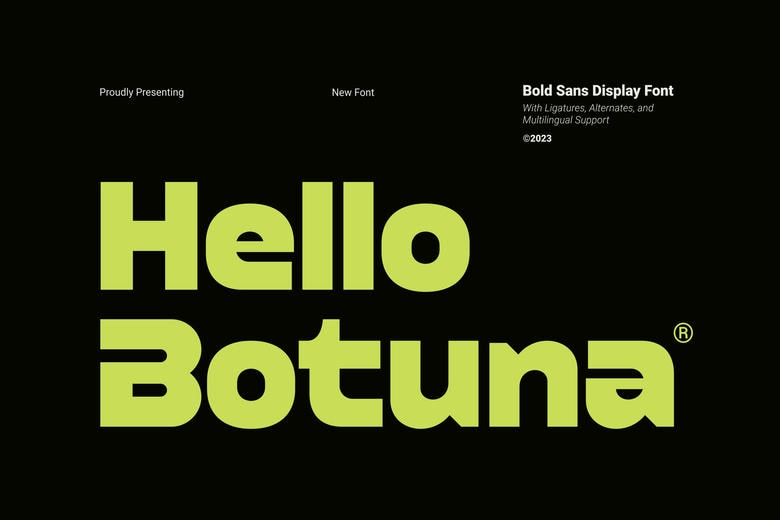
Hello Botuna Font
Hello Botuna is a bold sans display font with a modern people and timeless charm. What is more, this font intentionally plays the leading role with the help of its thick and thin lines free of any unnecessary contours and shapes. Hello Botuna will be ideal for the projects which need some noticeable shift, such as headlines, logos, and many more promotion materials.
The most remarkable feature is that the title of this sans-serif typeface is rather brutal, but it has the refined air of sophistication which gives the notion an unparalleled versatility. Its characters are original and easily readable , which makes a message conveyed through this font type easy to read and stylish. Upgrade your design projects with the distinctive character and the modern touch of Hello Botuna – a typeface that shouts out loud with each of the symbols.
Hello Botuna Sans Serif Font